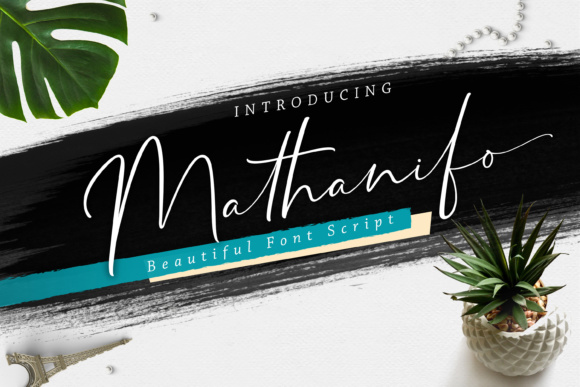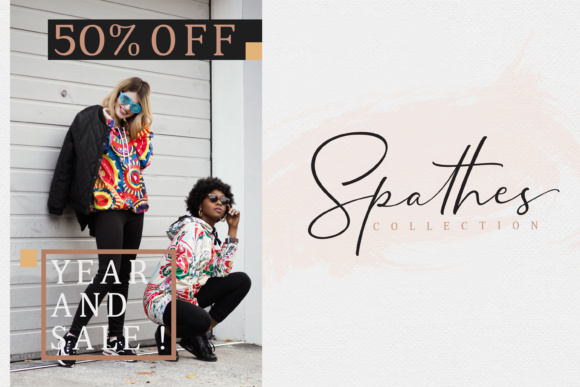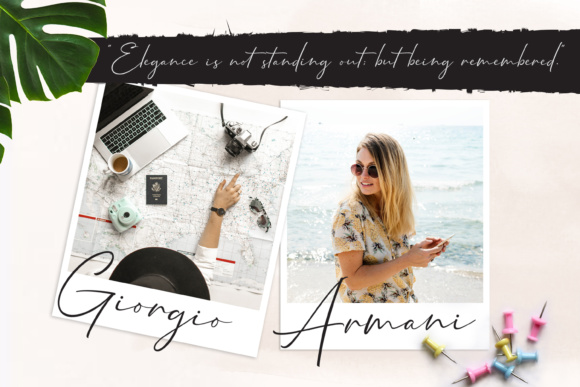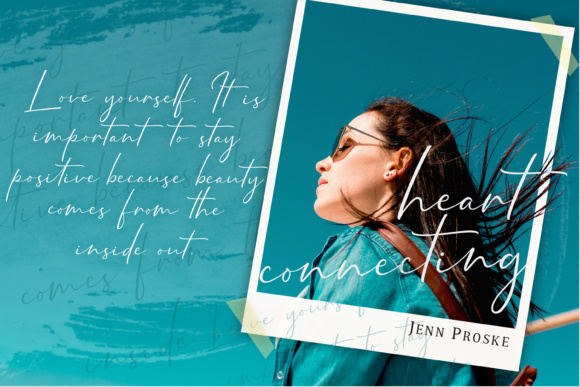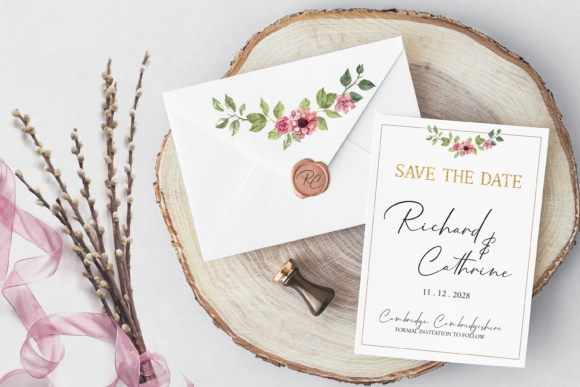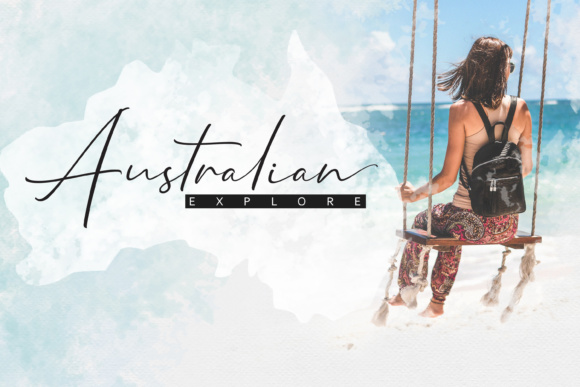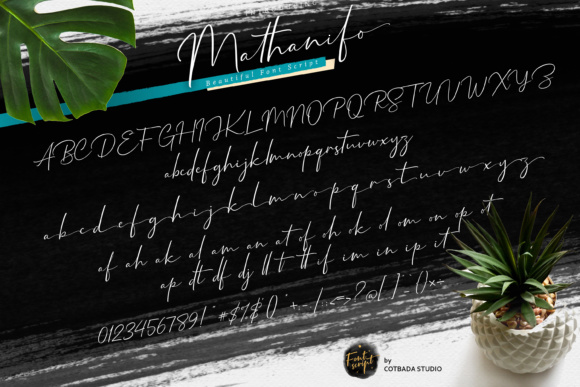
Mathanifo Script Font
About Mathanifo Script Font
Mathanifo Script is a unique, cool and modern handwritten font. It’s handmade style makes it perfect for use in all your design projects such as: logos, signatures, labels, packaging design, blog headlines and much more!